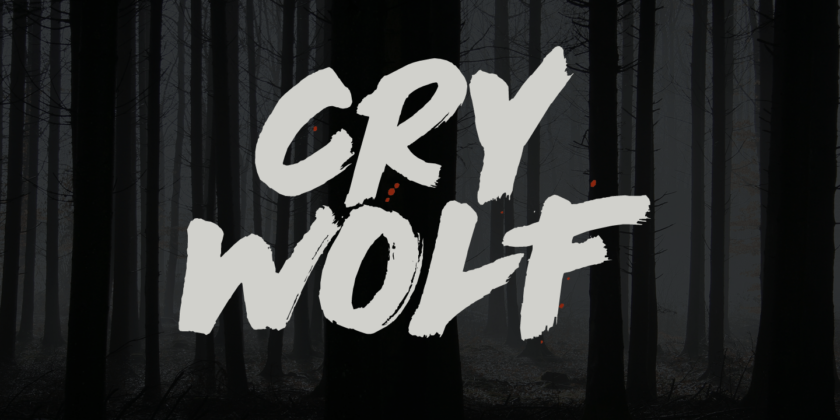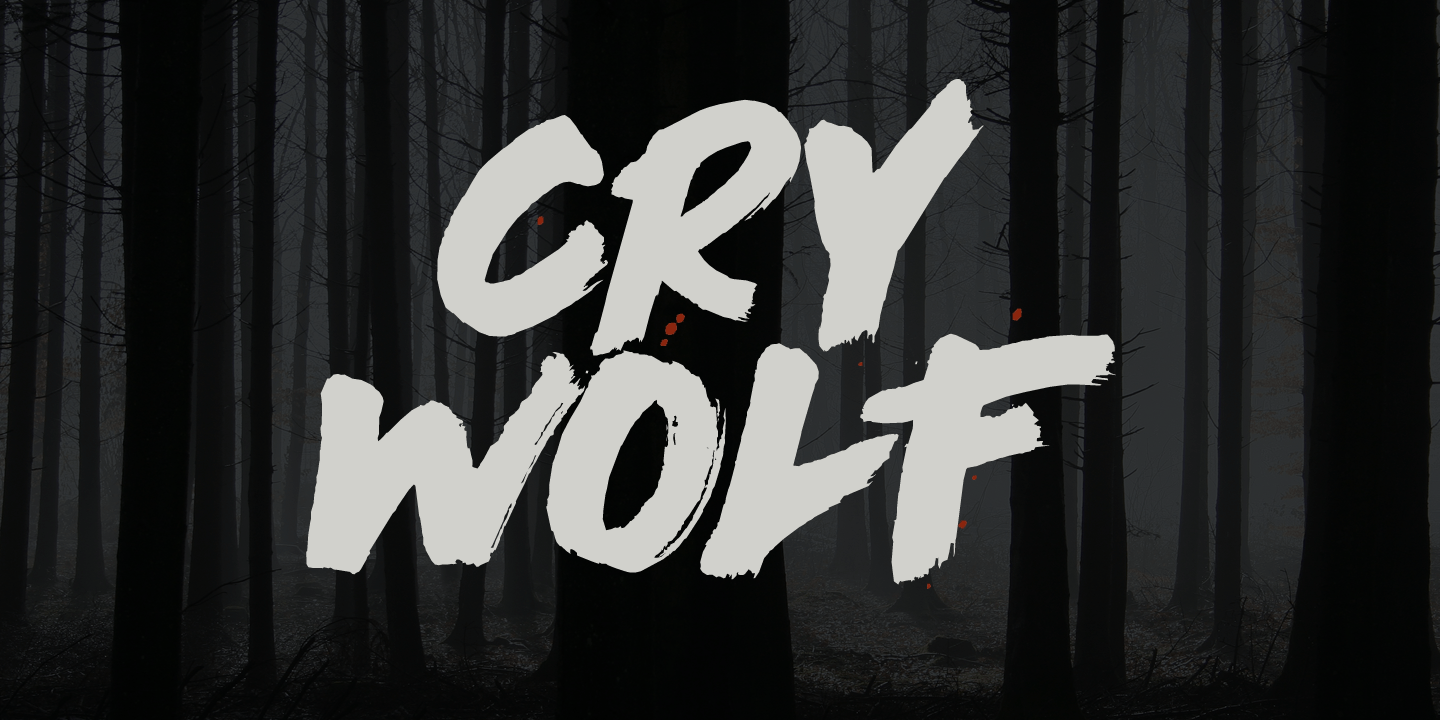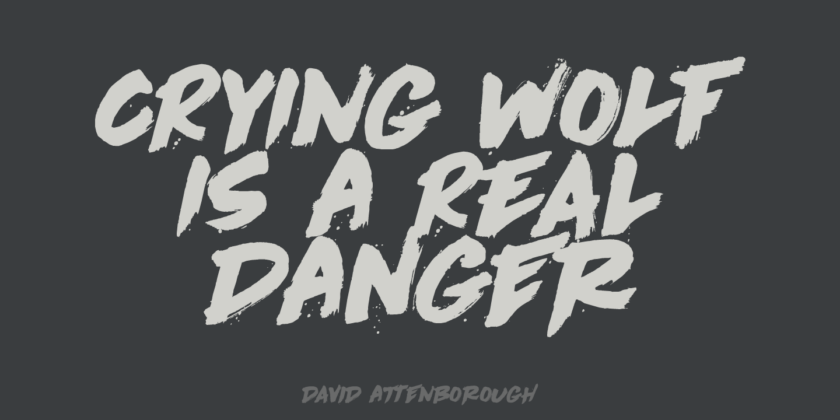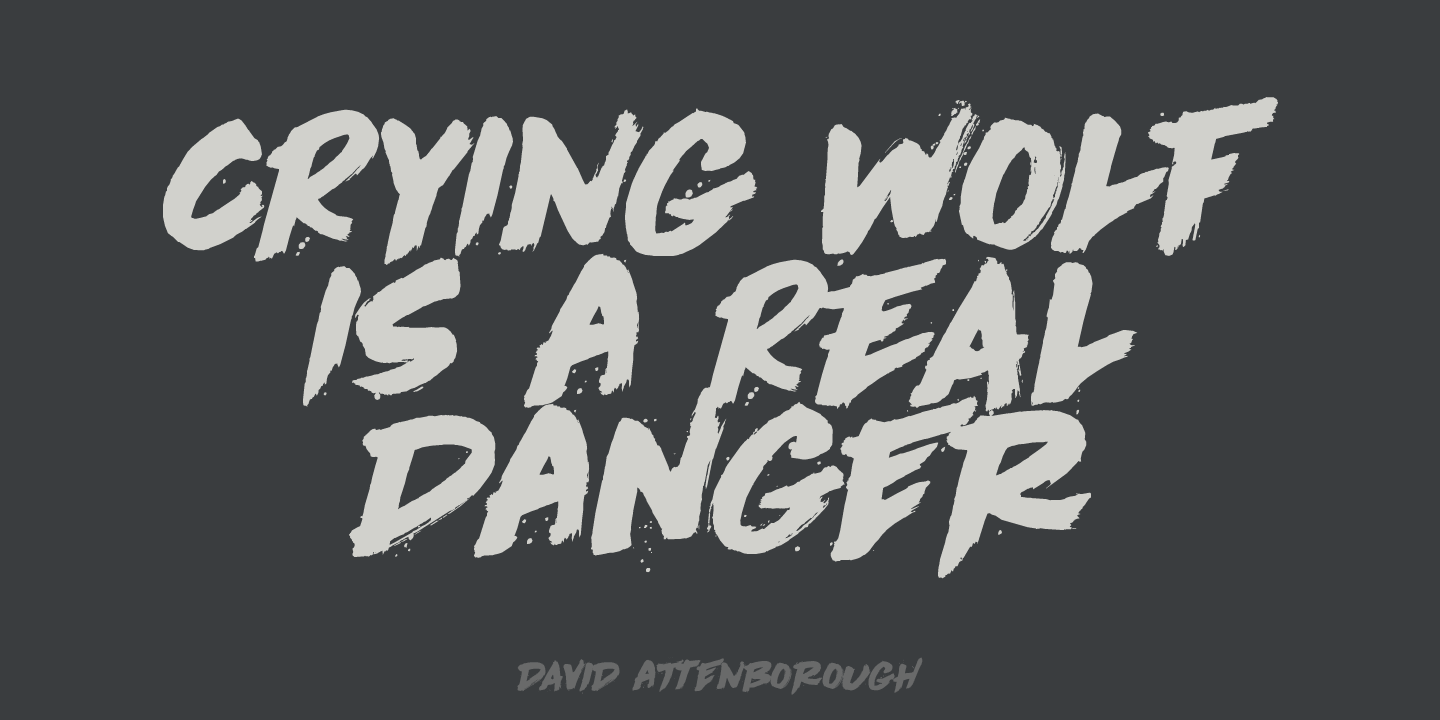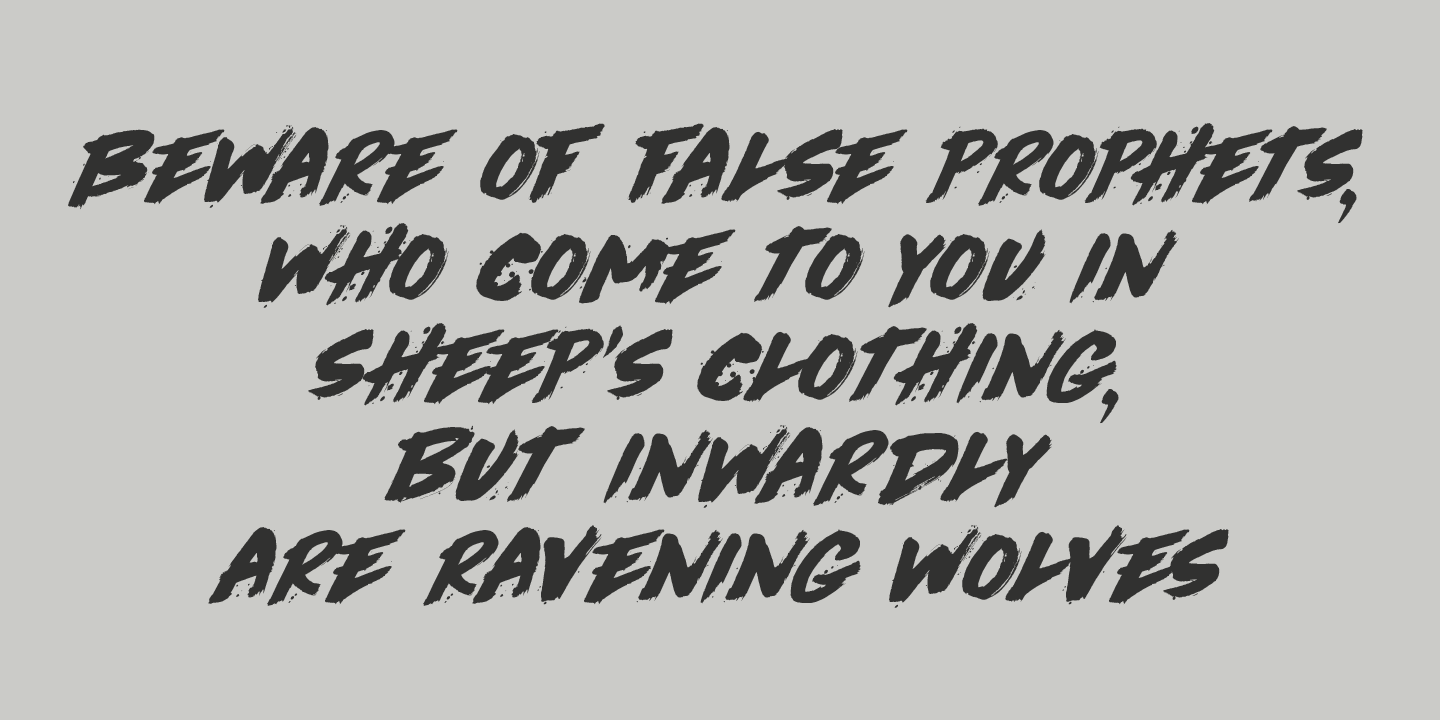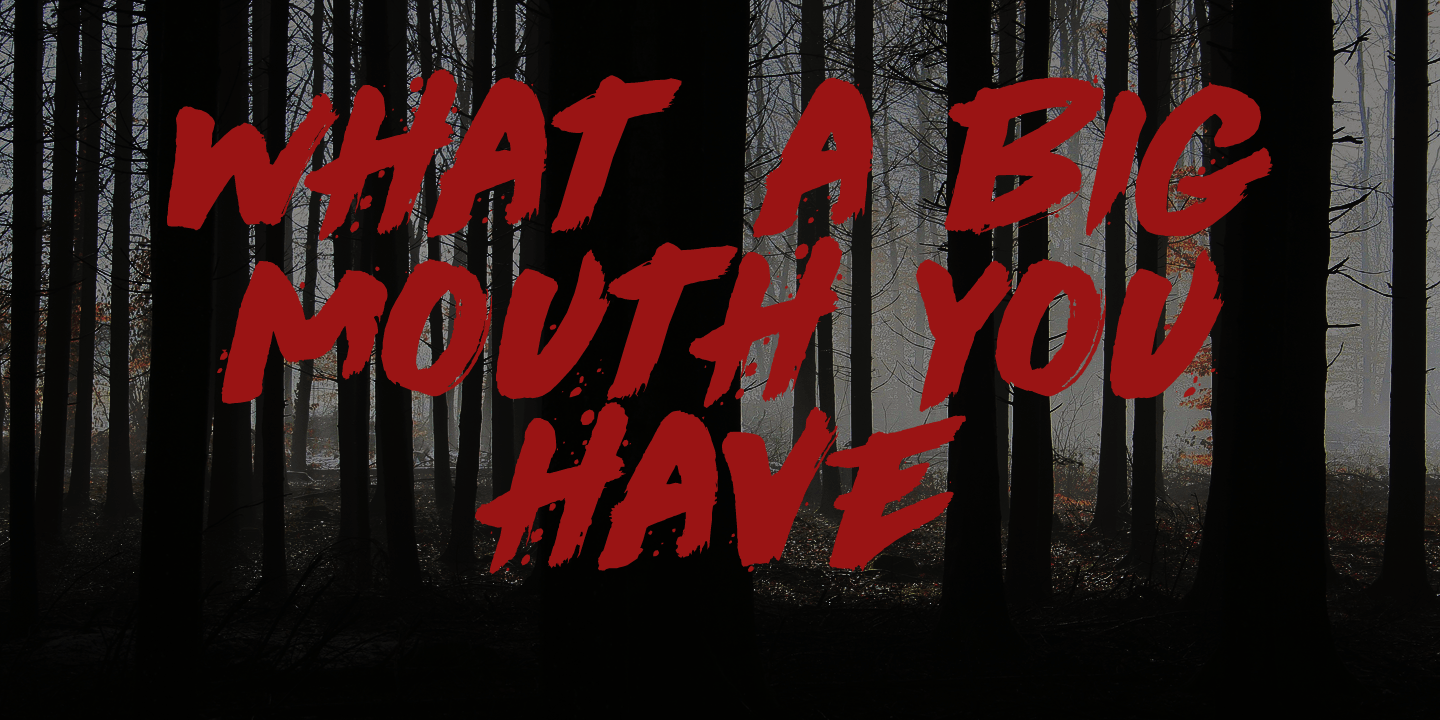
Cry Wolf
About Cry Wolf
Cry Wolf is a bit of a scary font: it was made with a really old and battered brush, using Chinese ink and some quality French paper. It has a slight tilt to the right and I added some inky splatter for dramatic effect. Use Cry Wolf for your book covers,…